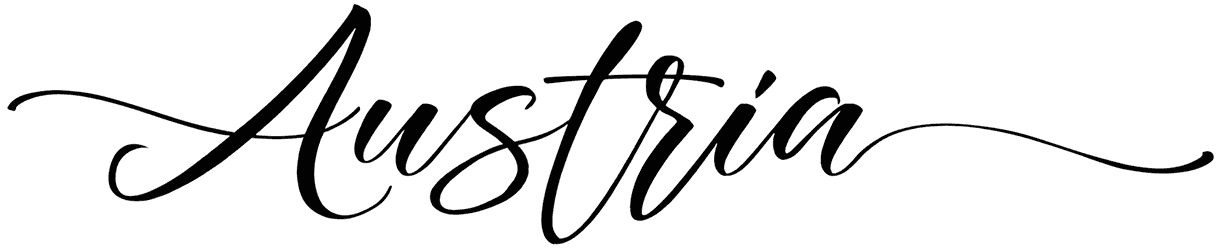
Austria Font
Austria is a flowing, feminine tattoo font that is informal and gives your preferred typography a natural, hand-drawn, and feminine feel. The slim characters of this specific font are creative, they look stunning, and are best for any design that you wish to add an artistic touch.
Features : Beginning & Ending Swash